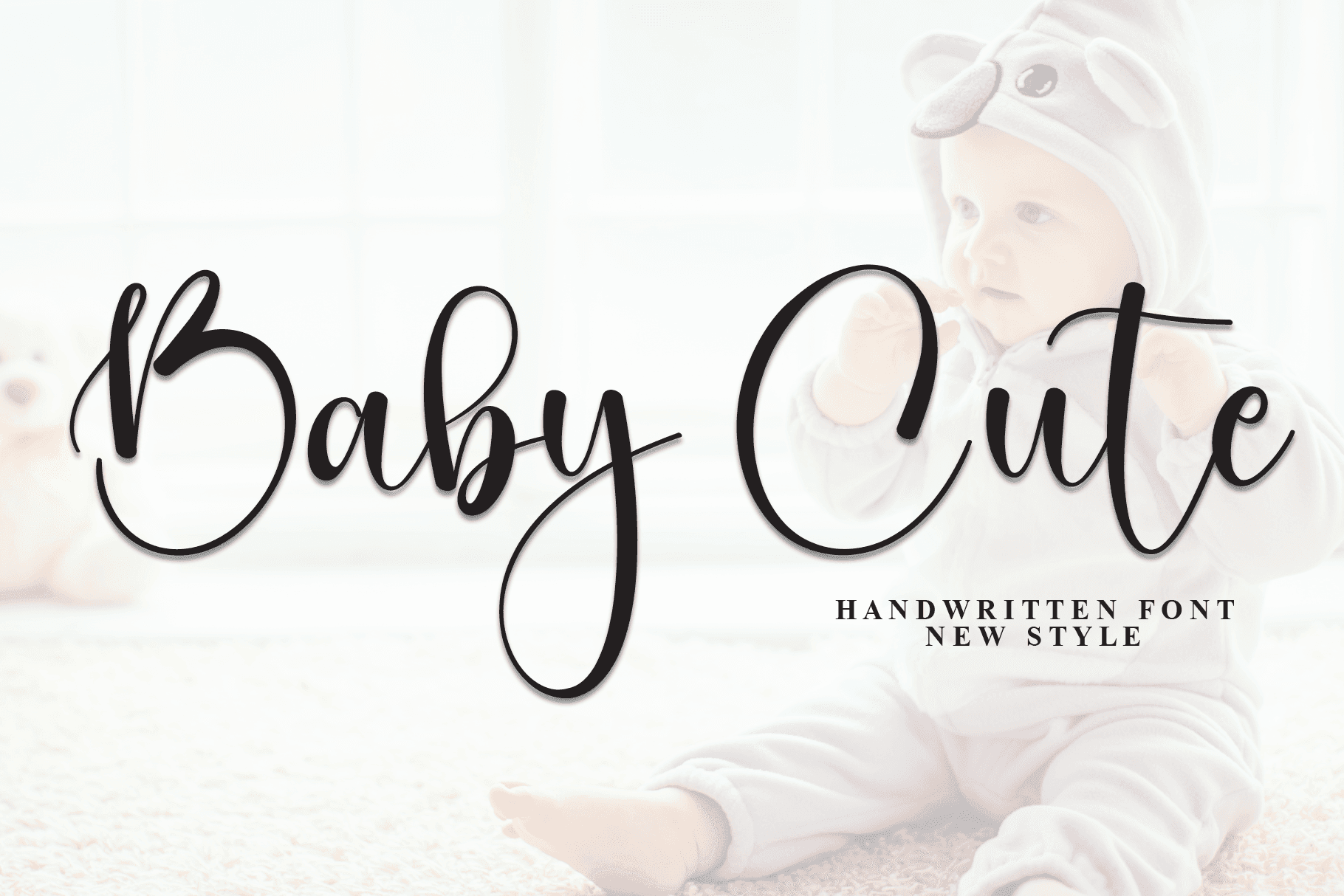
Baby Cute Font: π Check out Baby Cute Font now! Explore this π script fonts and claim your π free download here. Let's start crafting together! π special creative products for you, our products will give you an extraordinary experience. the lates...